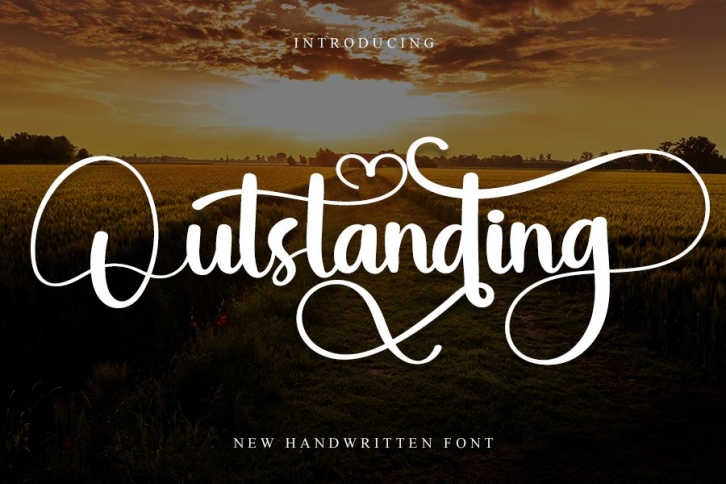
Outstanding is a beautiful font that was designed by InermediaSTUDIO. It's a great choice for designers and creatives who need such a font. It was released on September 26, 2022 and the file size is 1.29 MB. Outstanding may give a more youthful, expressive and casual look to your project. It is a very beautiful, refined, elegant, and high-quality font.